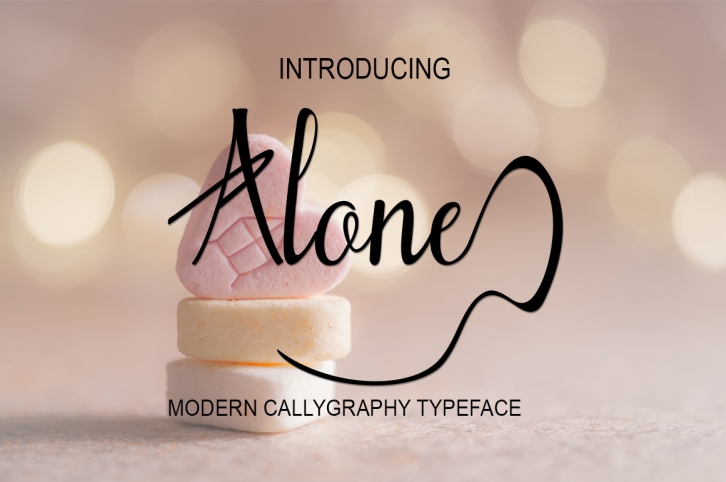
Alone script is a gorgeous font that was realeased on June 15, 2017. The font can be used in many style contexts and design environments. Perfect for invitations, magazines, websites, logos, and more! It was designed by arwah studio and the file size is 16.58 MB. Thanks for checking out this font!